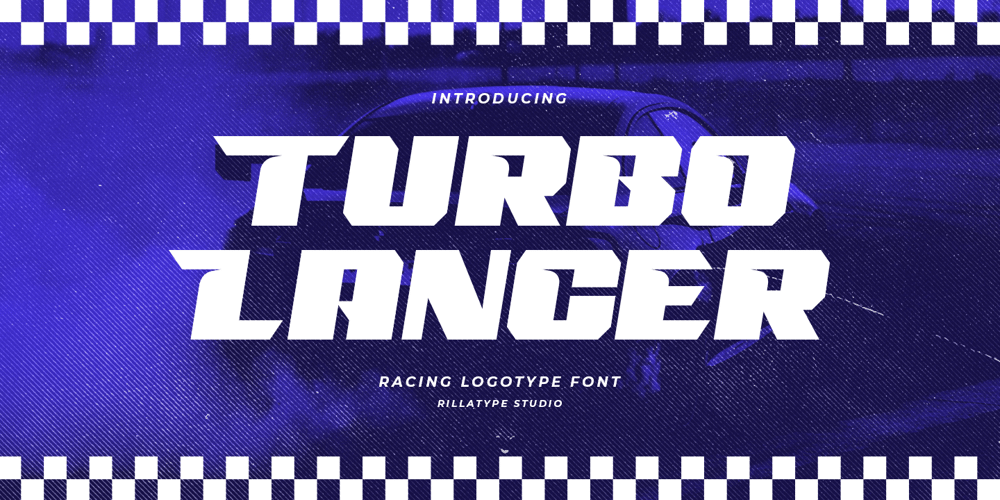
Turbo Lancer
Turbo Lancer font
Turbo Lancer Font Family was designed by Gustian Agung Asprilla and published by Rillatype. Turbo Lancer contains 3 styles and family package options. The Turbo Lancer font is tailored specifically for your sports and racing logos. Crafted to embody dynamic spirit and speed, this font offers three distinct styles: regular, outline, and extrude. With bold and sharp characters, it ensures your logo stands out and grabs attention. Turbo Lancer exudes a modern and aggressive vibe, perfect for brands or events revolving around racing and high-speed sports.